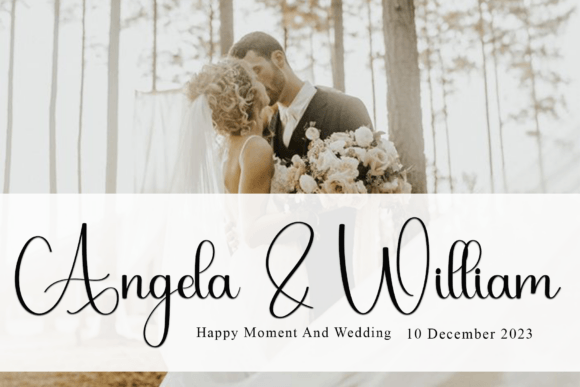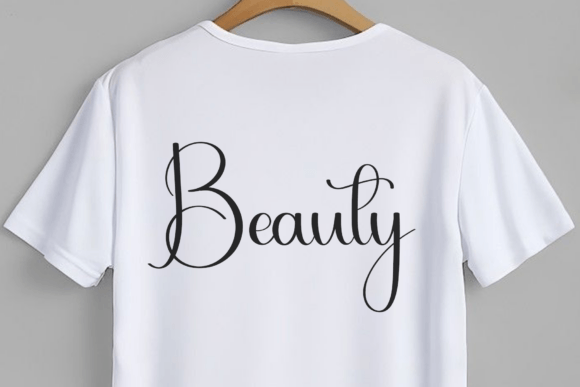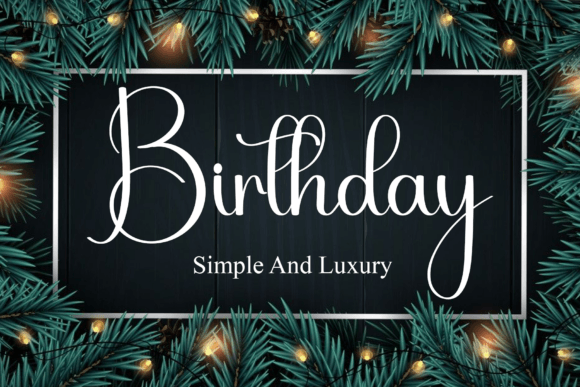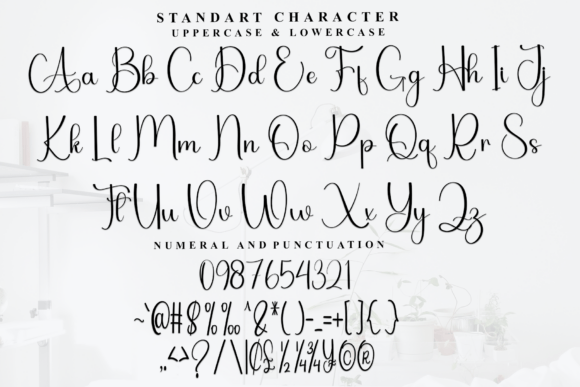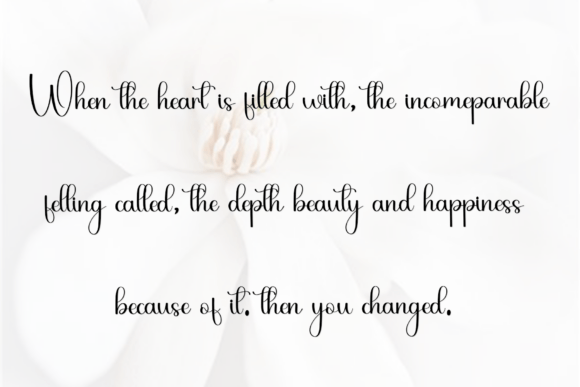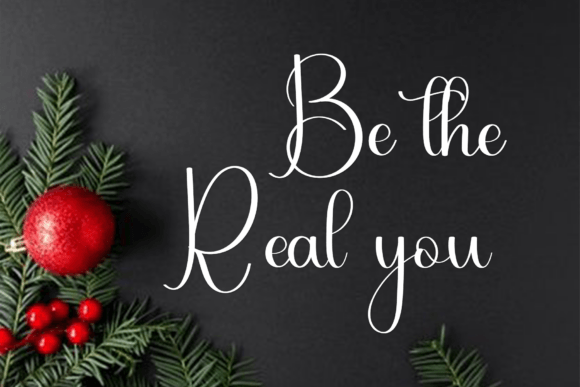
When Design Meets Whimsy: The Joy of Butterflies Font
Have you ever stared at a blank canvas, waiting for inspiration to strike? It’s a moment we’ve all experienced as creatives, and it’s precisely when we need a little nudge to get our imagination soaring. For many designers, that spark of creativity often comes from discovering a font that perfectly captures the essence of their project. And that’s where the delightful Butterflies Font comes in – a casual and creative typeface that exudes warmth and friendliness.
With its round, playful strokes and charming hand-drawn aesthetic, the Butterflies Font is perfect for adding a relaxed and approachable feel to personal projects, invitations, and social media graphics. Its versatility and unique touch make it a valuable asset for designers looking to add a bit of whimsy to their work.
Key Features of Butterflies Font
- Font Family: Butterflies Font is a unique, handwritten font that offers a distinctive and elegant touch to various designs.
- Unique Characteristics: Features a whimsical, hand-drawn style with subtle imperfections, giving it a personal and artistic feel.
Review: Butterflies Font
Overall, I have mixed feelings about the Butterflies Font. It’s an interesting and unique font, but it also has some limitations that make it not ideal for all designs.
- The whimsical and playful feel of the font is great for projects that need a touch of magic or fantasy.
- The font is highly customizable, allowing you to adjust the color, size, and spacing to fit your design needs.
- The font is suitable for digital designs, such as web and mobile apps, where a unique and eye-catching font is needed.
- The font can be difficult to read in certain contexts, such as in long blocks of text or at small font sizes.
- The font may not be suitable for formal or professional designs, as it may come across as too playful or childish.
- The font’s unique style may not be to everyone’s taste, and may not be a good fit for all design projects.
The Butterflies Font is a great choice for projects that need a touch of whimsy and fantasy. However, it may not be the best choice for all designs, and its limitations should be carefully considered before using it.
Tips for Getting the Most Out of the “Butterflies Font”
Use the “Butterflies Font” for whimsical and playful designs, such as children’s books, party invitations, and greeting cards.
Experiment with different font sizes and colors to create a unique and eye-catching effect.
The “Butterflies Font” is ideal for:
- Children’s book titles and illustrations
- Greeting cards and gift tags
- Whimsical blog post titles and